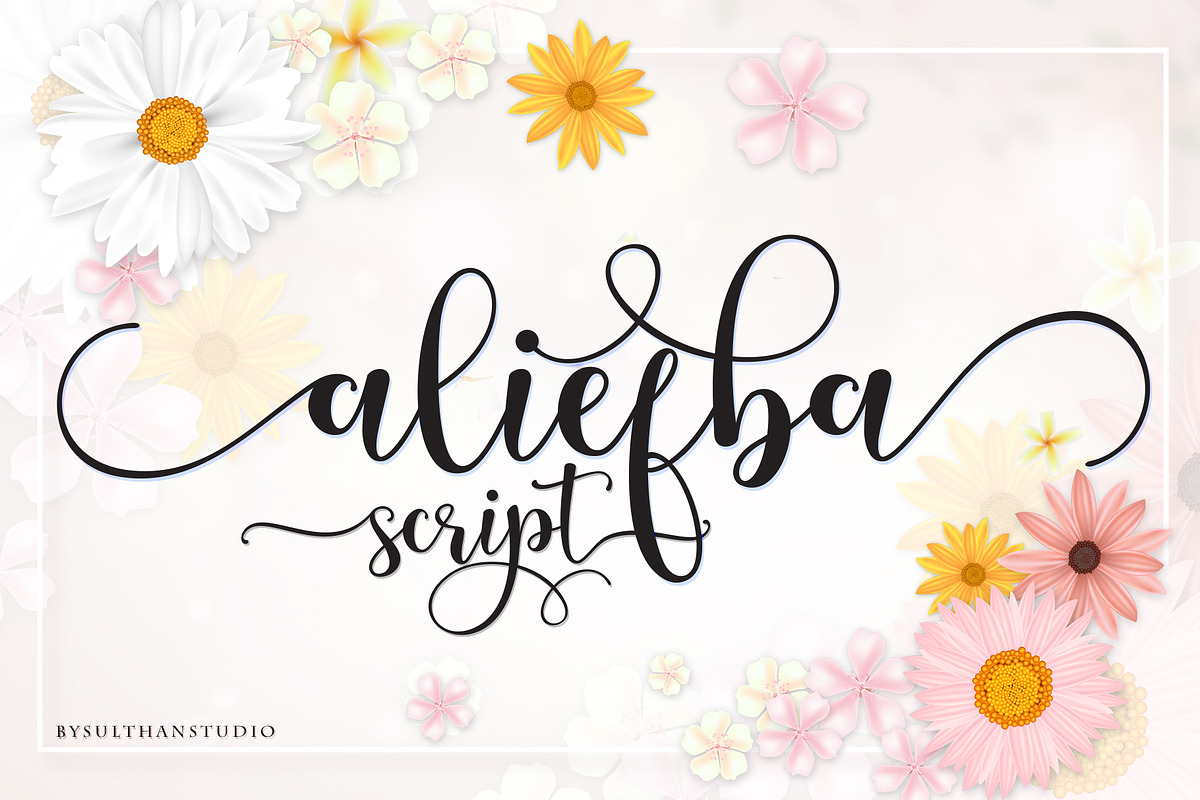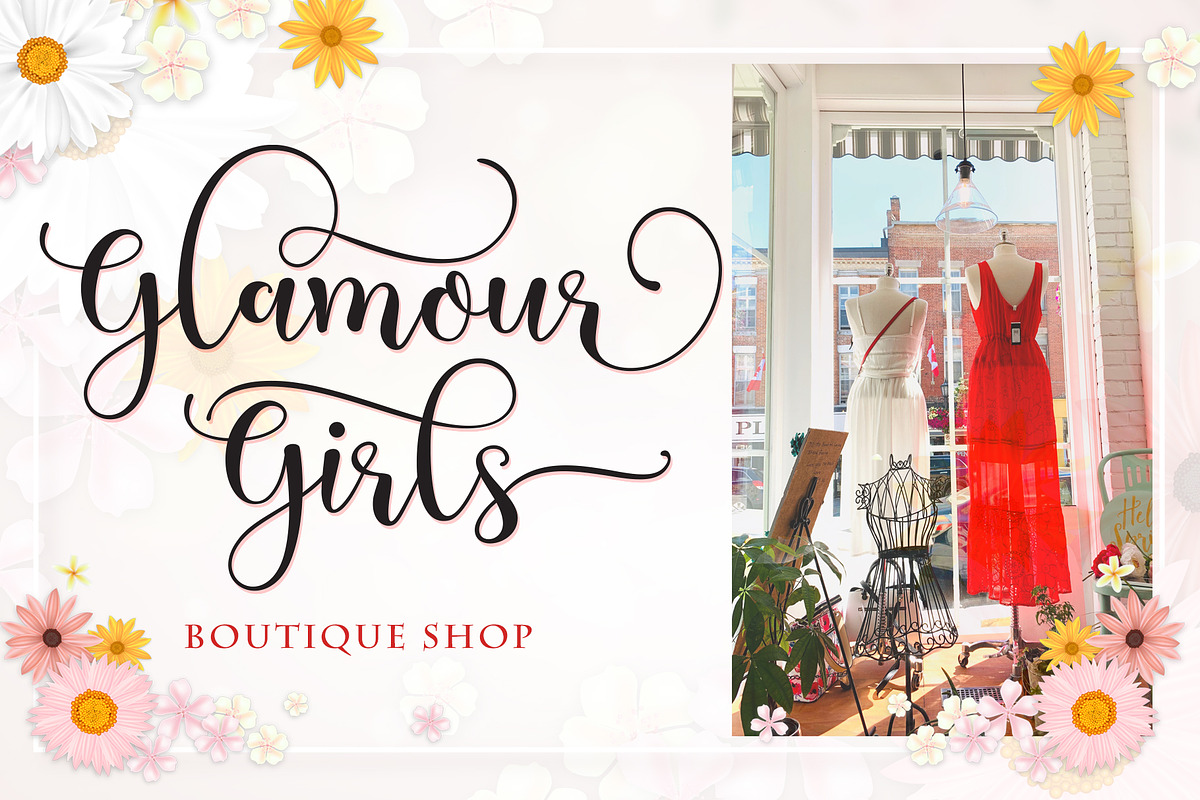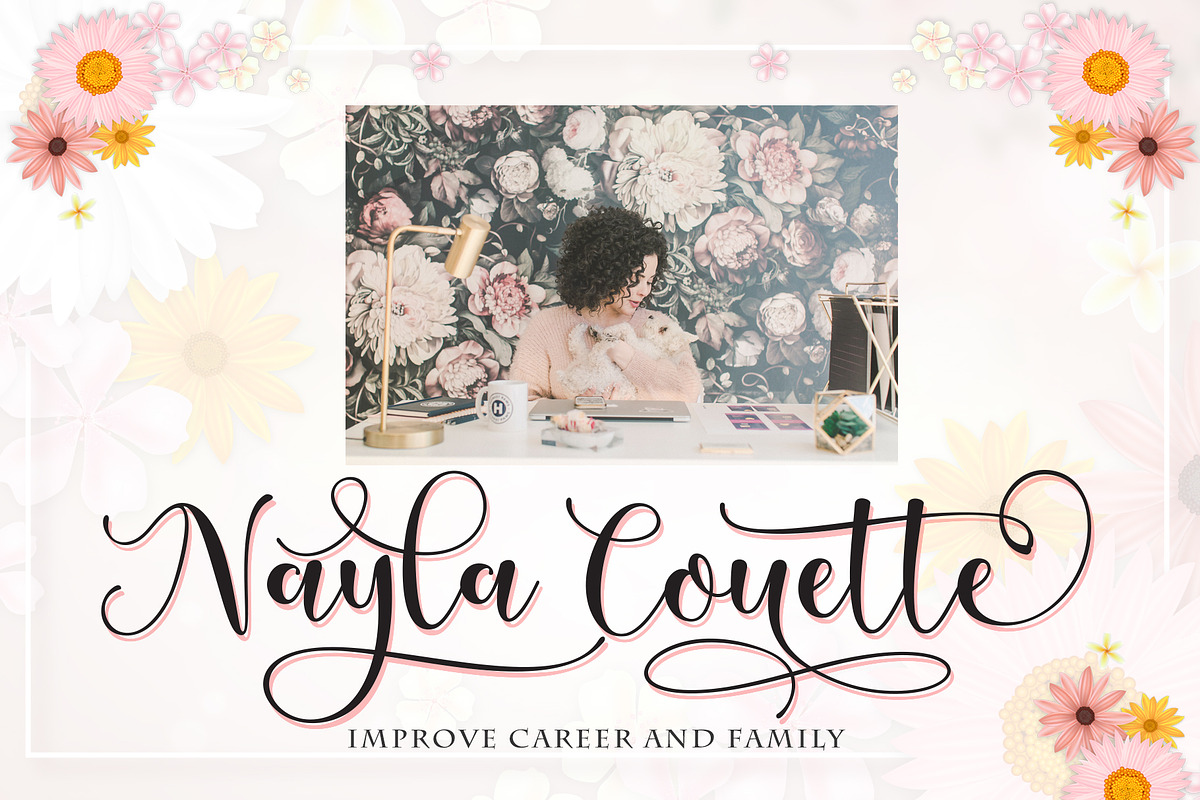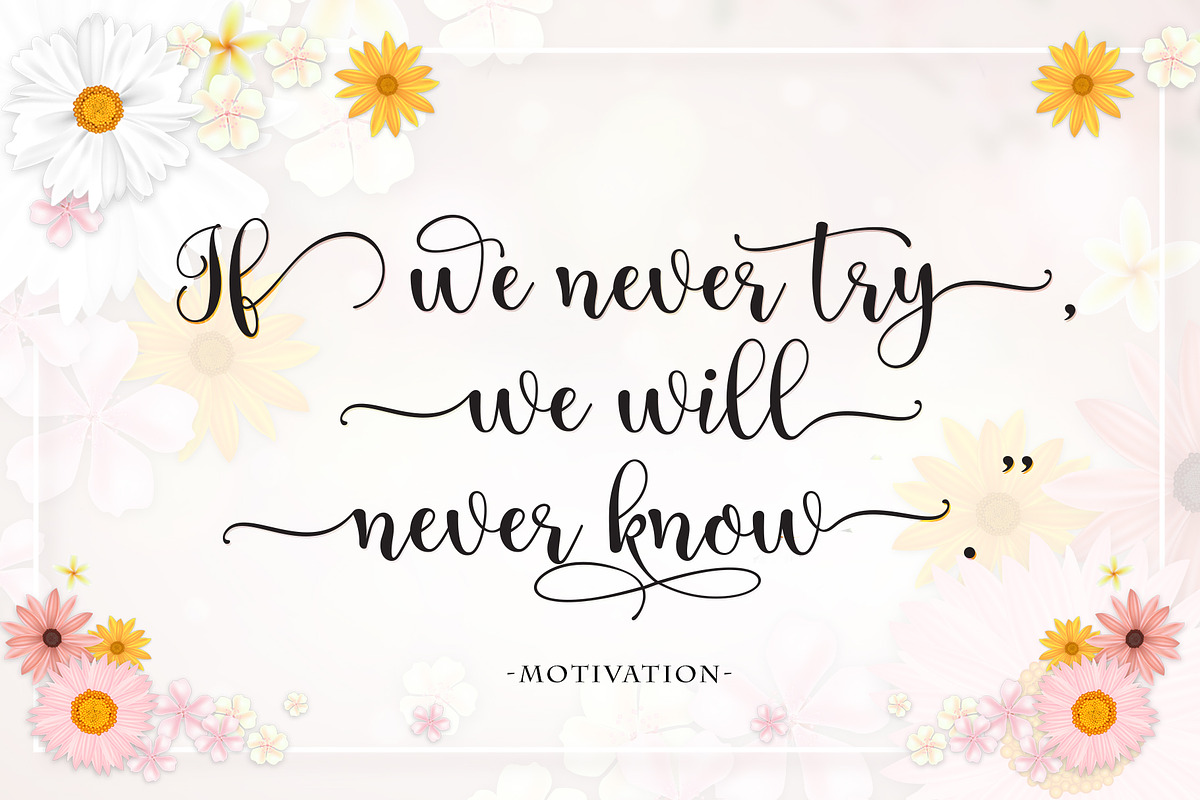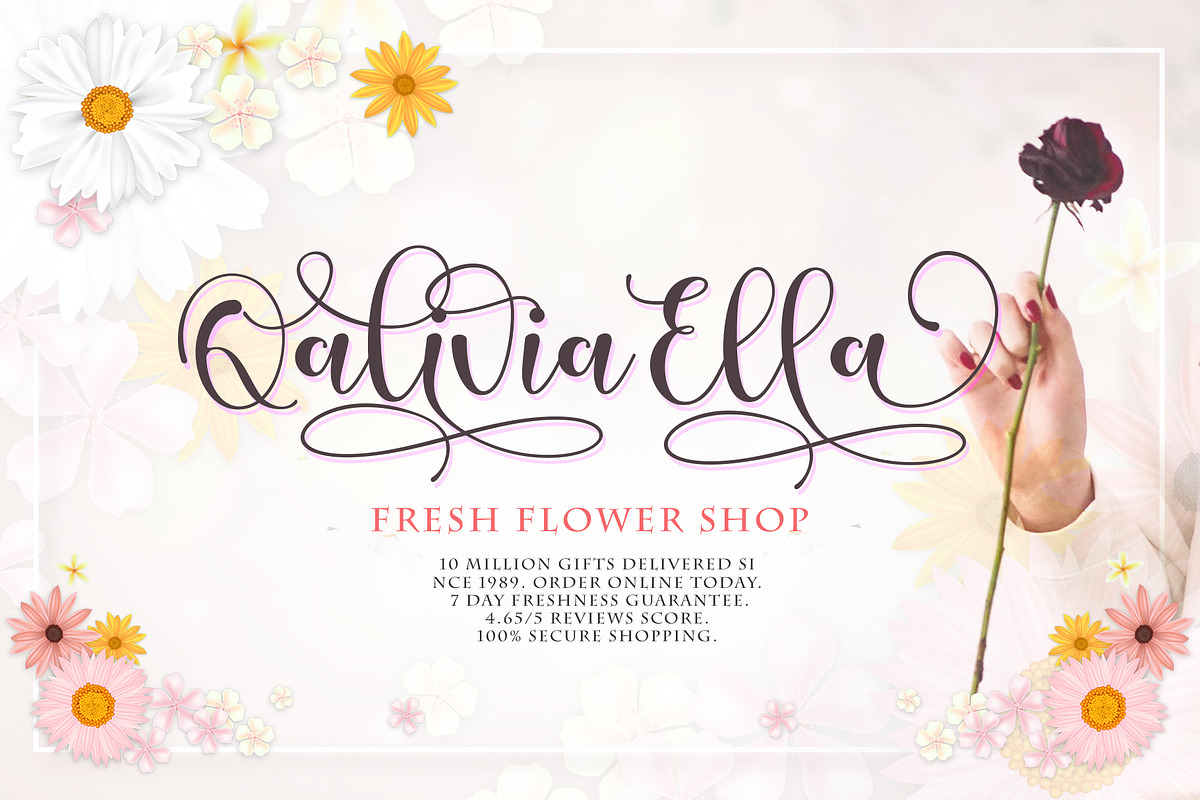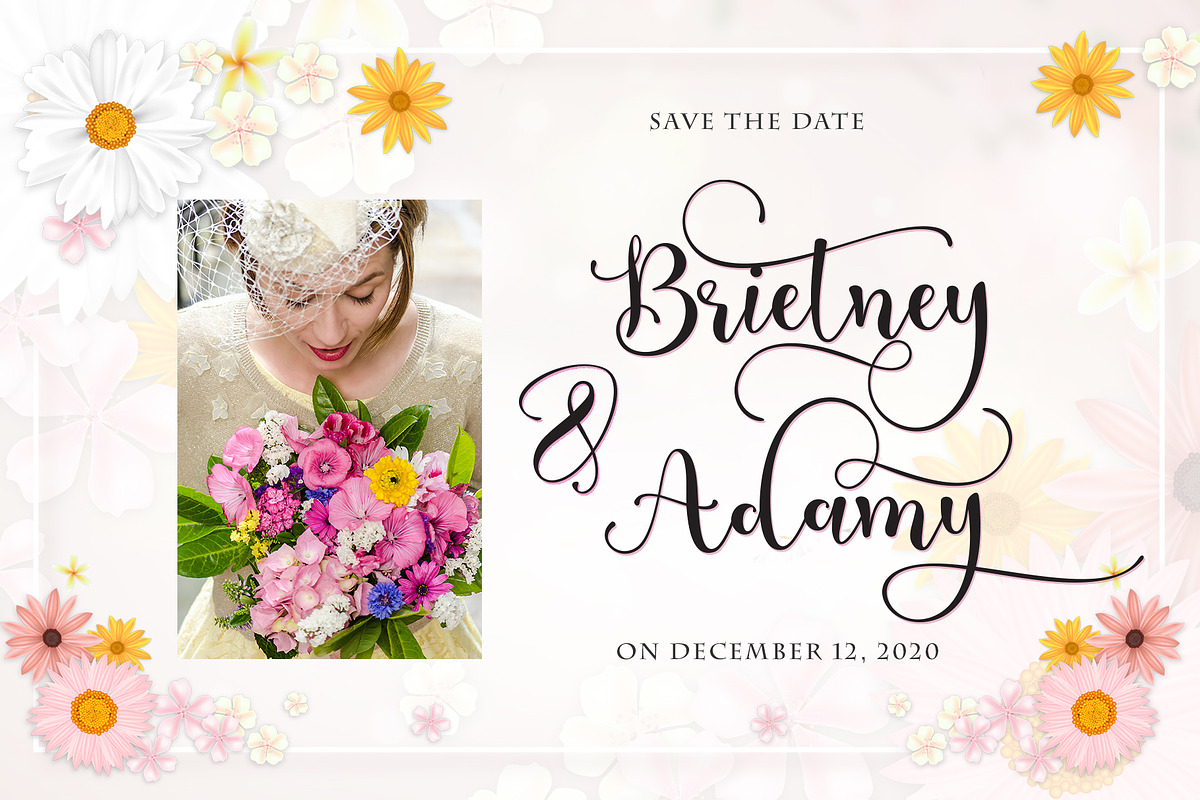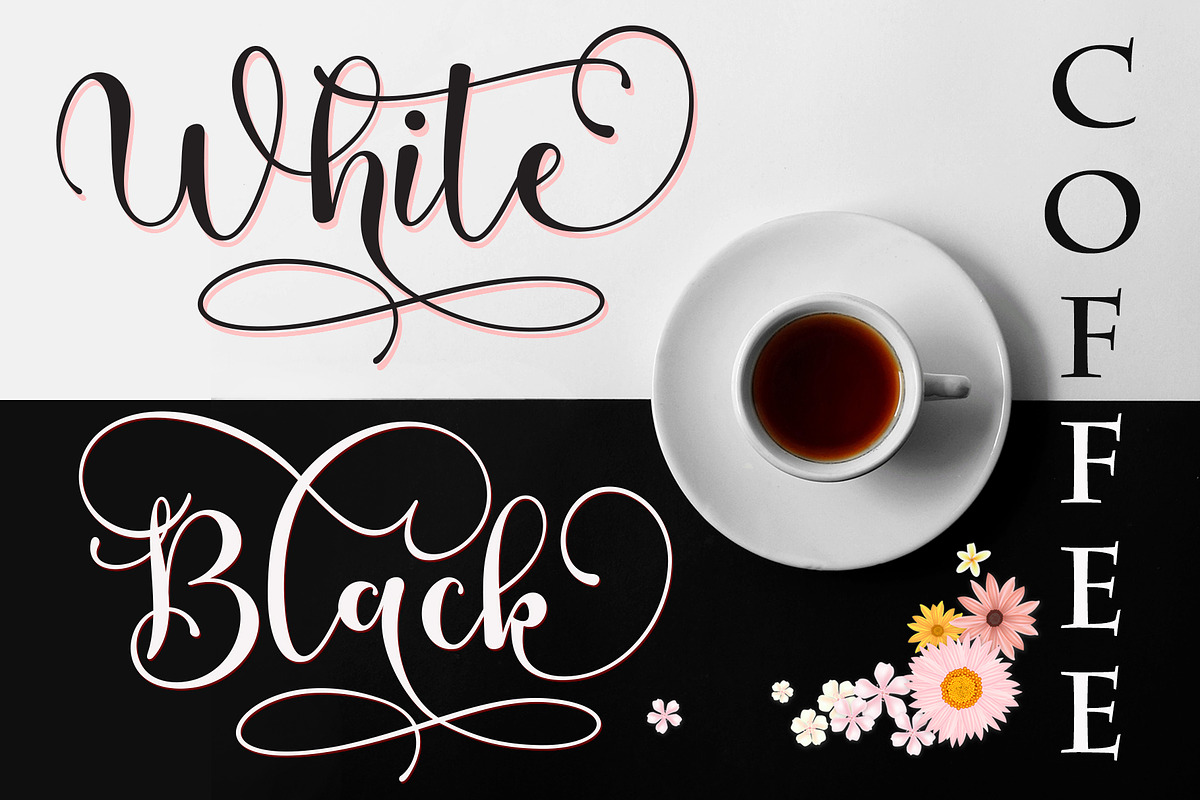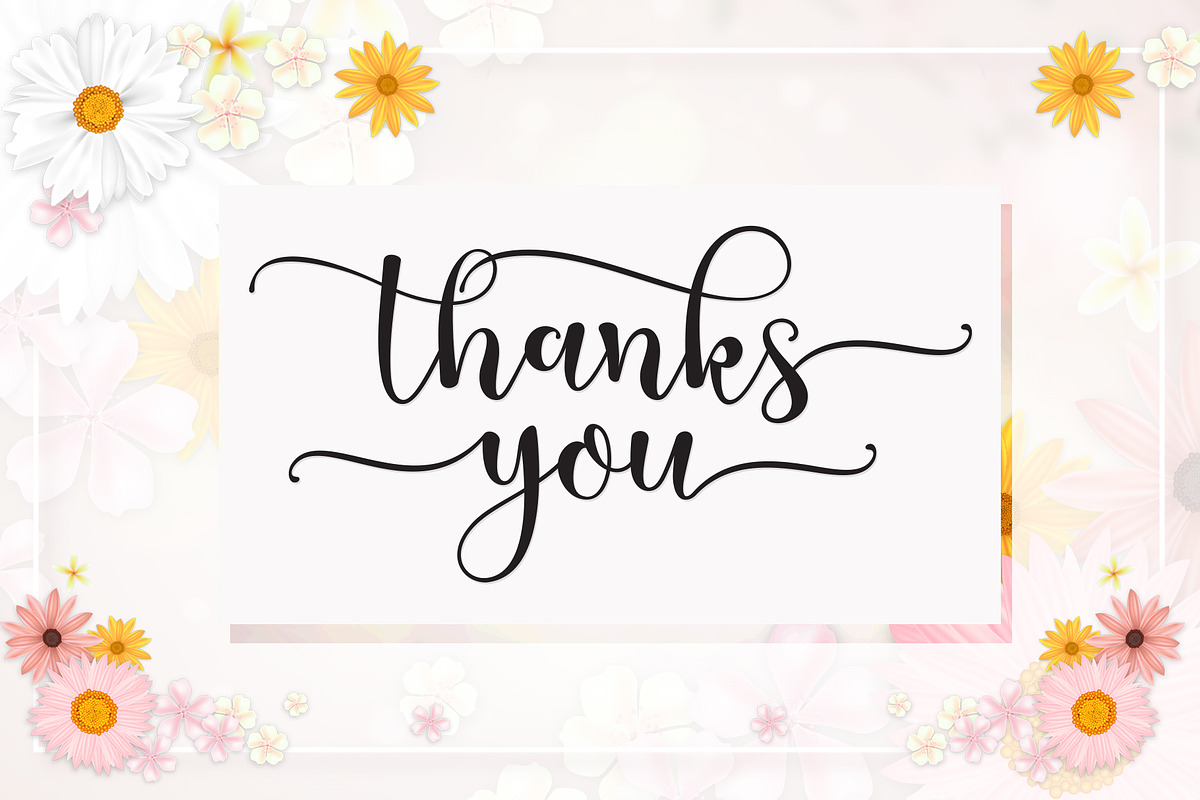
Aliefba Script
Aliefba Script is a charming font with beautiful curves
This font has 430 glyphs, includes alternative characters and also has language support, and all characters can be accessed via the Character Map, Font Book, or your preferred font management program.